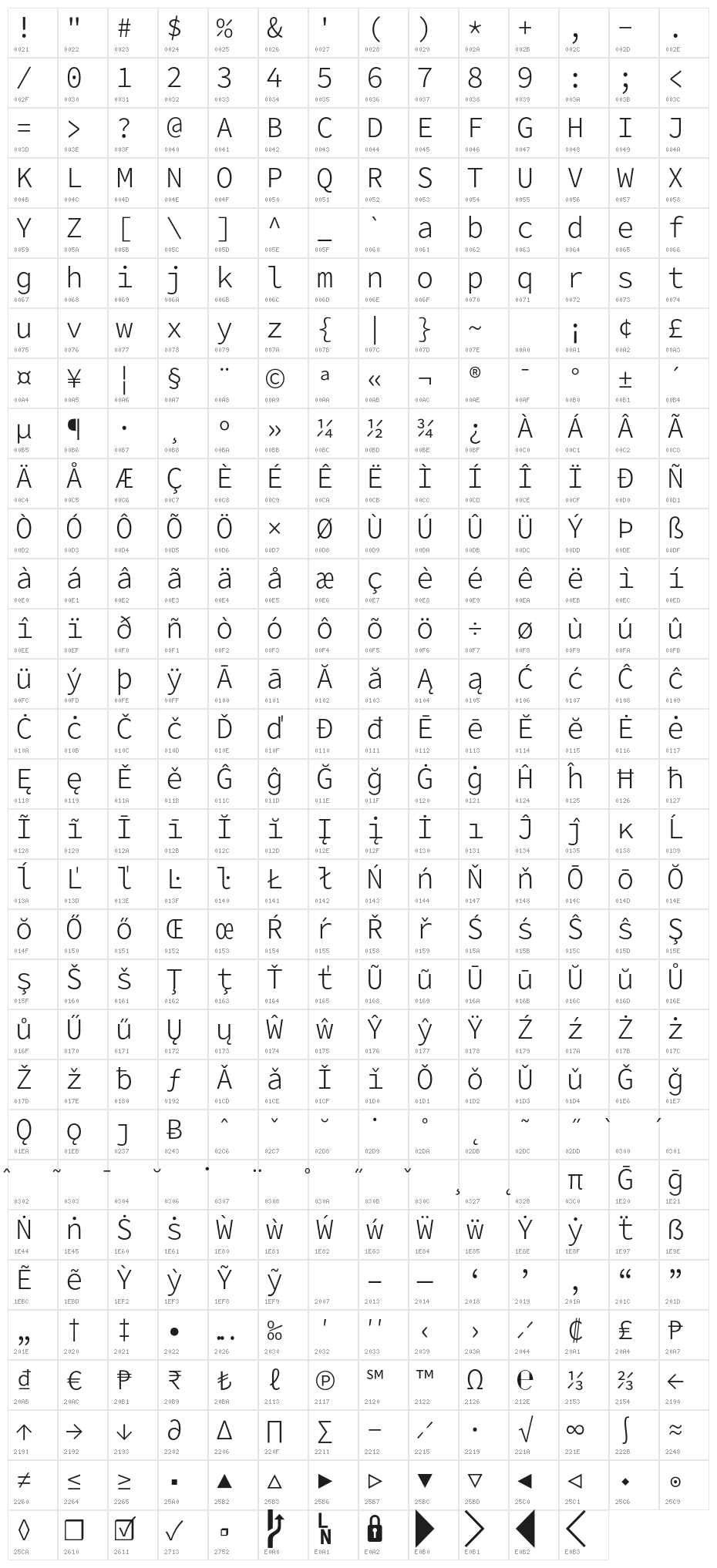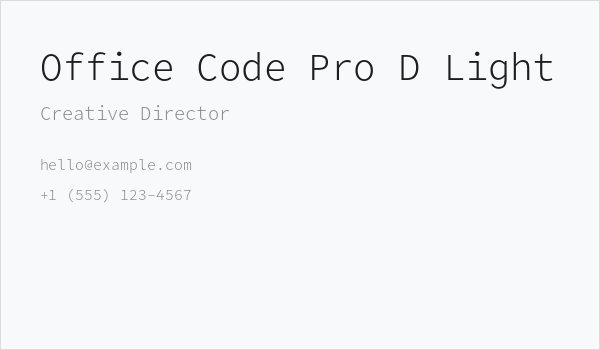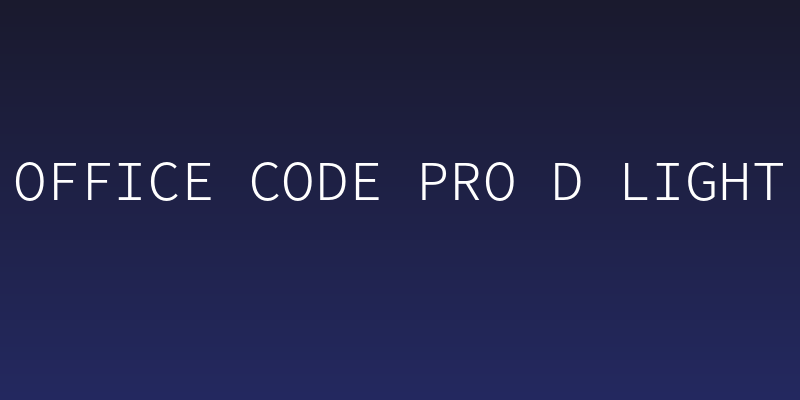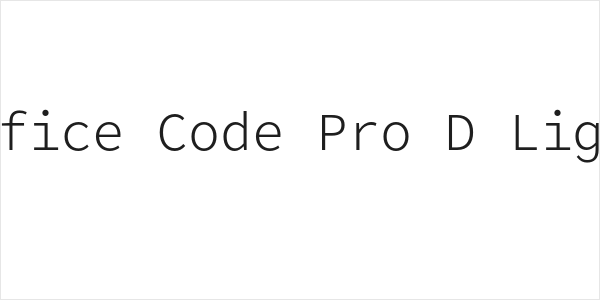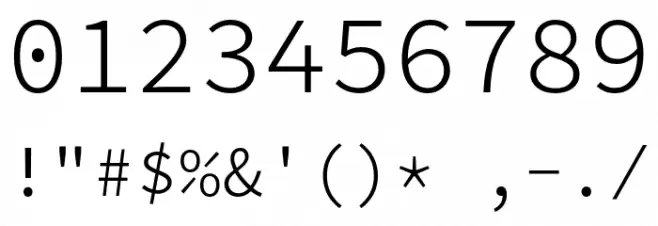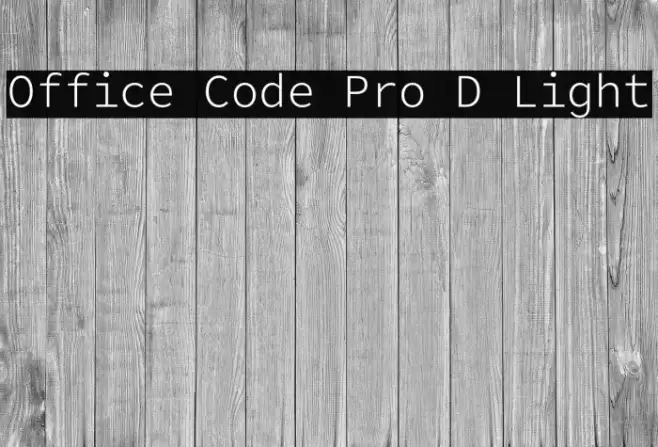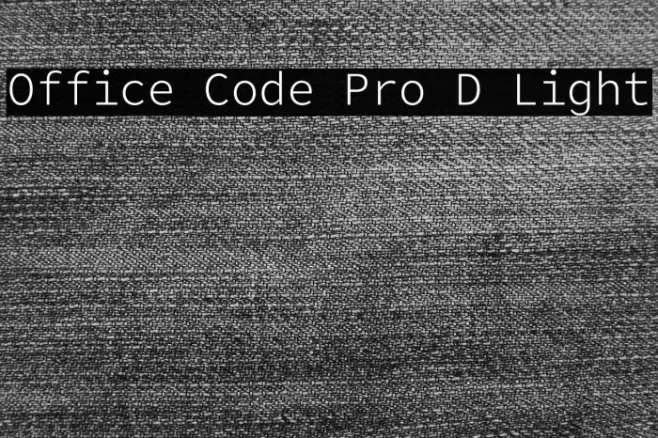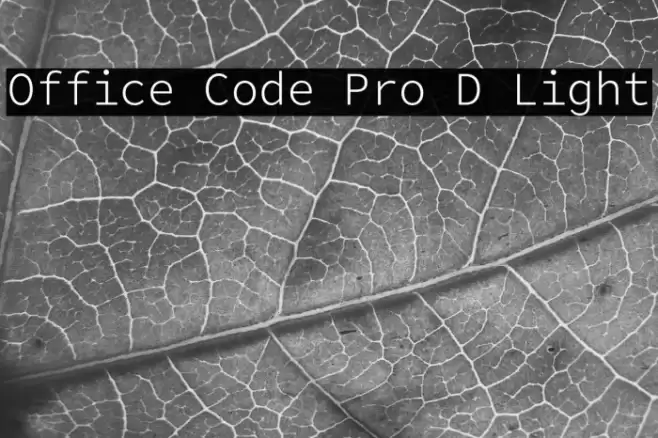
Office Code Pro D Light Font
| उपयोग का मामला | Code editors, technical documentation, data visualization |
| सुझाए गए प्रोजेक्ट | Ideal for coding environments, technical documentation, and data visualization projects. |